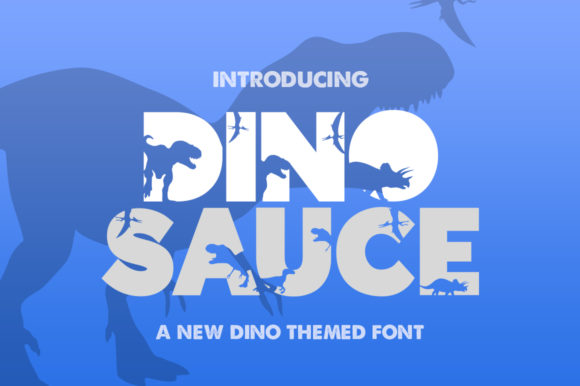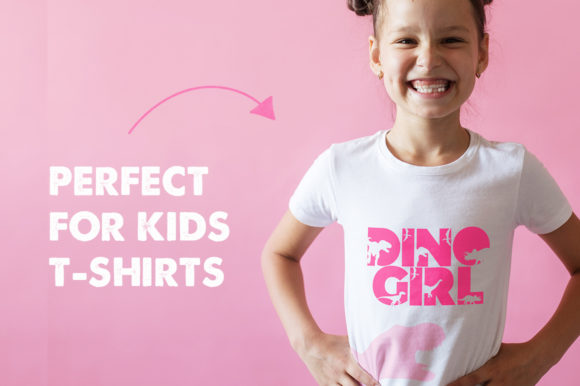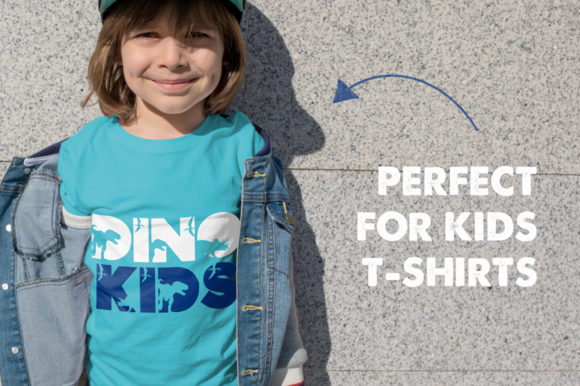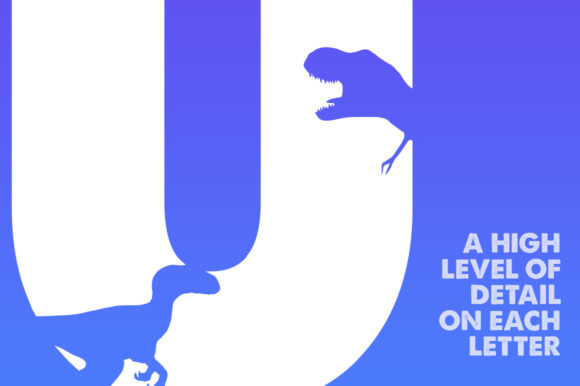
Dinosauce Font: A Playful Display Font for Kids Crafts & DIY Projects!
About the Dinosauce Font
Add a touch of class to your work with the Dinosauce Font, a truly exceptional typeface. Open the door, get on the floor, everybody walk the dinosaur! Full of your fave prehistoric creatures, Dinosauce is perfect for any kids-themed design projects!
Dinosauce’s playful, cartoonish style is ideal for children’s book illustrations, branding for toy companies, or playful packaging designs. It works exceptionally well in headlines, short slogans, and logos where its bold character can shine. However, its low x-height and unique letterforms make it unsuitable for body text or UI elements requiring high readability.
For a balanced design, pair Dinosauce with a clean sans-serif like Open Sans for body text, creating a fun contrast. Alternatively, a playful script font such as Pacifico can enhance the whimsical feel for projects needing more handwritten aesthetic elements. Avoid pairing it with overly serious or geometric fonts that might clash with its energetic personality.
The overall personality is undeniably fun and friendly, conveying a sense of childhood adventure and excitement. This makes it an excellent choice for projects targeting a younger audience or those needing a vibrant, memorable visual identity.
Dinosauce Font Usage Examples
Dinosauce Font Example